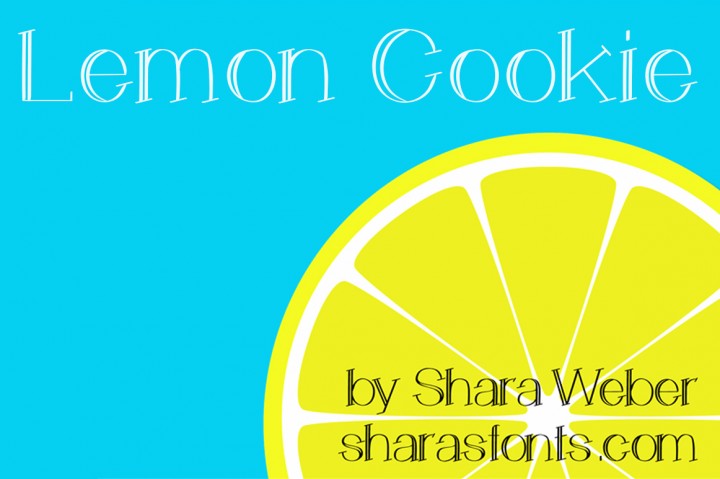
Free Font Lemon Cookie Typeface
Download and enjoy this free font lemon cookie typeface. Cool typeface to showcase your designs in a modern way. This free typeface file was found from the amazing source called The Hungry JPEG. Amaze your fellow designers and create stunning designs with this fancy font.